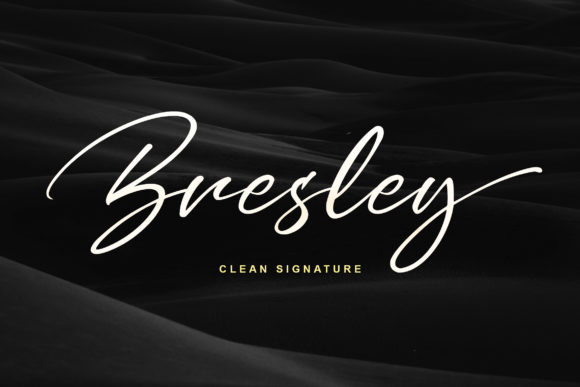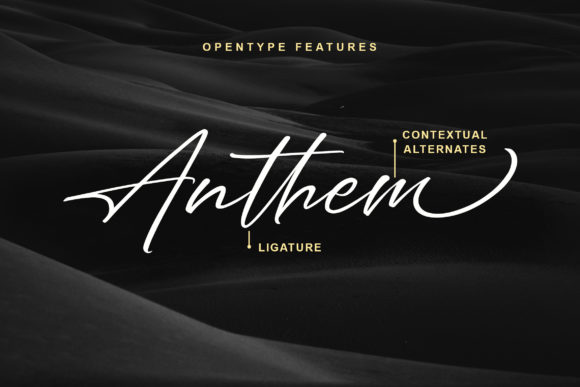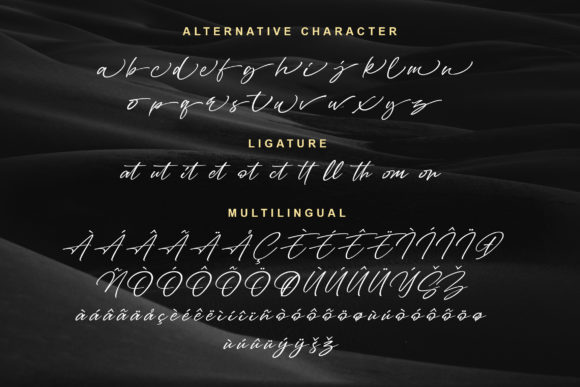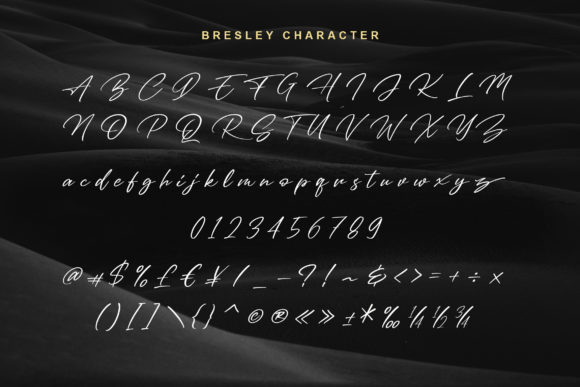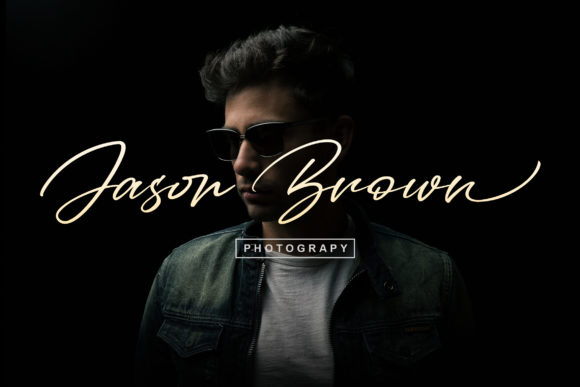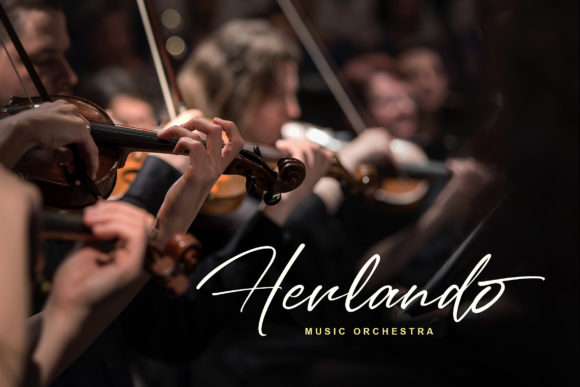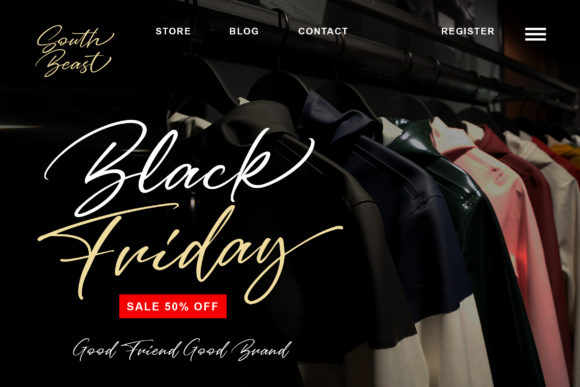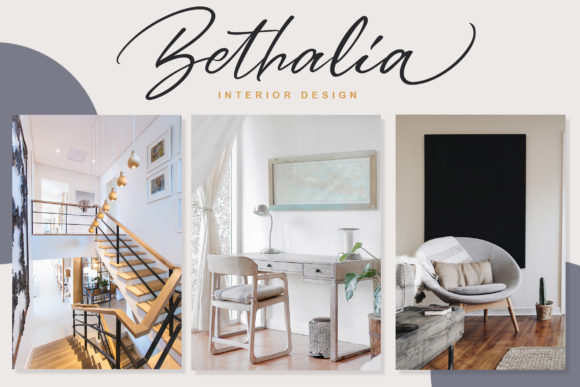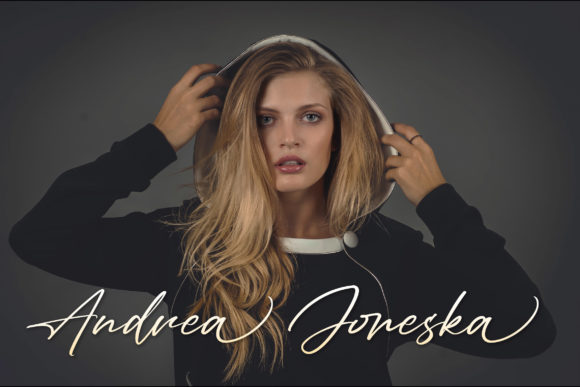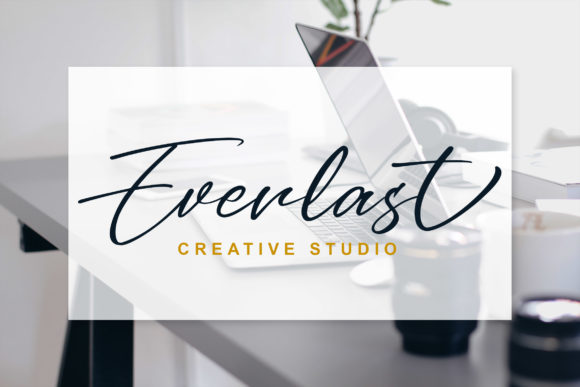
Bresley Font
About Bresley Font
Bresley is a contemporary handwritten font with bold and authentic swashes. It will turn any design project into a true stand out.